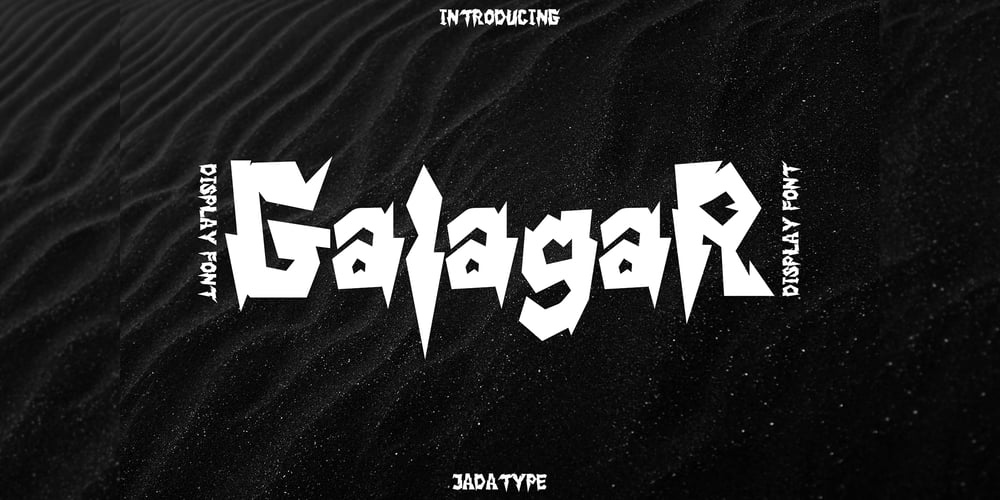
Galagar Font Family was designed by Jada Akbal and published by Jadatype. Galagar contains 1 styles and family package options. Galagar is a font with a strong look. The font is suitable for your branding name, poster title, event, or group name, supported by the font that gives a strong effect to the reader. has its own market and fans. can be used in adobe illustrator, photoshop, or microsoft word.By purchasing this font, you will get:- Uppercase and Lowercase letters- Alternates Characters- Ligatures- Numbering and Punctuations- Multilingual Support- Works on PC or Mac- Simple Installation- Support Adobe Illustrator, Adobe Photoshop, Adobe InDesign, also works on Microsoft Word.Thank you